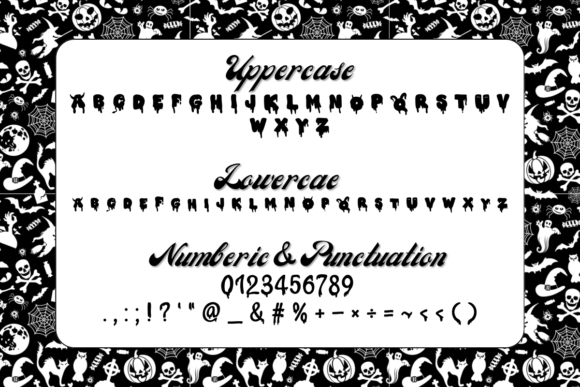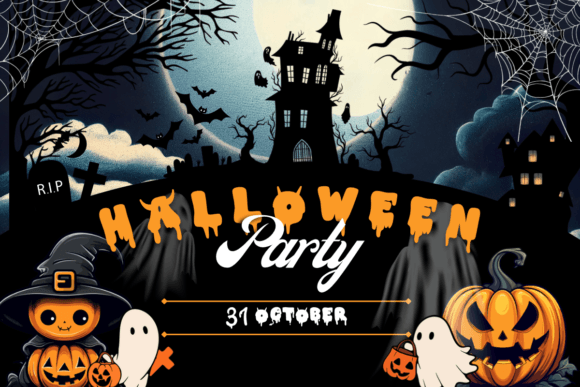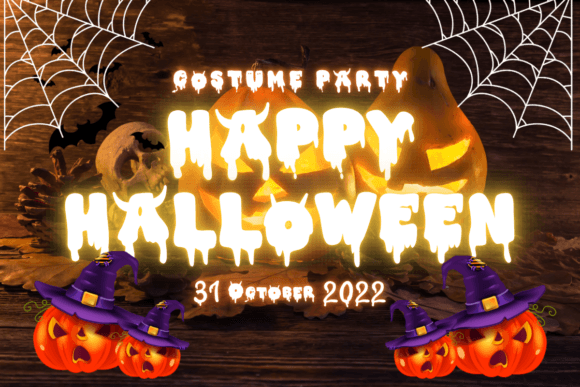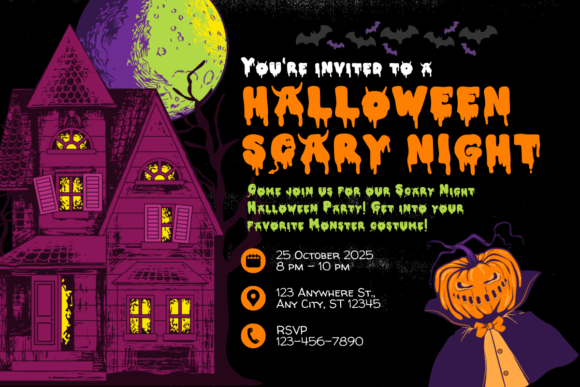
Unleash the Spookiness: Devil Halloween Font for Your Creative Projects
As the spookiest time of the year approaches, designers and crafters are on the lookout for the perfect font to add a touch of eeriness to their creative projects. Look no further than the Devil Halloween font, a display font with a spooky vibe that’s sure to cast a spell on your audience. In this article, we’ll dive into the world of Devil Halloween font, exploring its features, uses, and benefits for designers and crafters.
What is Devil Halloween Font?
Devil Halloween font is a display font designed to evoke the spirit of Halloween. With its bold, edgy, and spooky design, this font is perfect for creating eye-catching invitations, decorations, logos, and other creative projects. The font’s unique design features twisted and curved letters, giving it a haunting and eerie feel that’s sure to send shivers down your audience’s spine.
Features of Devil Halloween Font
So, what makes Devil Halloween font stand out from the rest? Here are some of its key features:
- Spine-tingling design: The font’s bold and edgy design is sure to grab attention and create a lasting impression.
- Perfect for Halloween-themed projects: Whether you’re creating invitations, decorations, or logos, Devil Halloween font is the perfect choice for adding a spooky touch.
- Versatile: This font can be used for a wide range of creative projects, from DIY crafts to professional designs.
Uses of Devil Halloween Font
Devil Halloween font is perfect for a wide range of creative projects, including:
- Invitations: Create spooky and eye-catching invitations for Halloween parties, haunted houses, or other spooky events.
- DIY crafts: Add a touch of eeriness to your DIY crafts, such as pumpkins, ghosts, or other Halloween-themed decorations.
- Logos: Create a bold and edgy logo for your business or brand with a spooky twist.
- Decorations: Use Devil Halloween font to create spooky decorations, such as banners, signs, or wall art.
Benefits of Using Devil Halloween Font
So, why choose Devil Halloween font for your creative projects? Here are some benefits:
- Adds a spooky touch: Devil Halloween font is designed to evoke the spirit of Halloween, adding a spooky touch to your creative projects.
- Grabs attention: The font’s bold and edgy design is sure to grab attention and create a lasting impression.
- Increases creativity: With Devil Halloween font, you can create unique and eye-catching designs that showcase your creativity.
Tips for Using Devil Halloween Font
Here are some tips for using Devil Halloween font in your creative projects:
- Experiment with different sizes: Devil Halloween font looks great in large sizes, but it can also be used in smaller sizes to create a more subtle effect.
- Pair with other fonts: Combine Devil Halloween font with other fonts to create a unique and eye-catching design.
- Use it sparingly: Use Devil Halloween font sparingly to create a greater impact. Too much of a good thing can be overwhelming.
Devil Halloween font is a display font with a spooky vibe that’s perfect for adding a touch of eeriness to your creative projects. With its bold, edgy, and twisted design, this font is sure to cast a spell on your audience. Whether you’re a designer or crafter, Devil Halloween font is a great choice for creating eye-catching invitations, decorations, logos, and other creative projects. So, why not give it a try and unleash the spookiness?